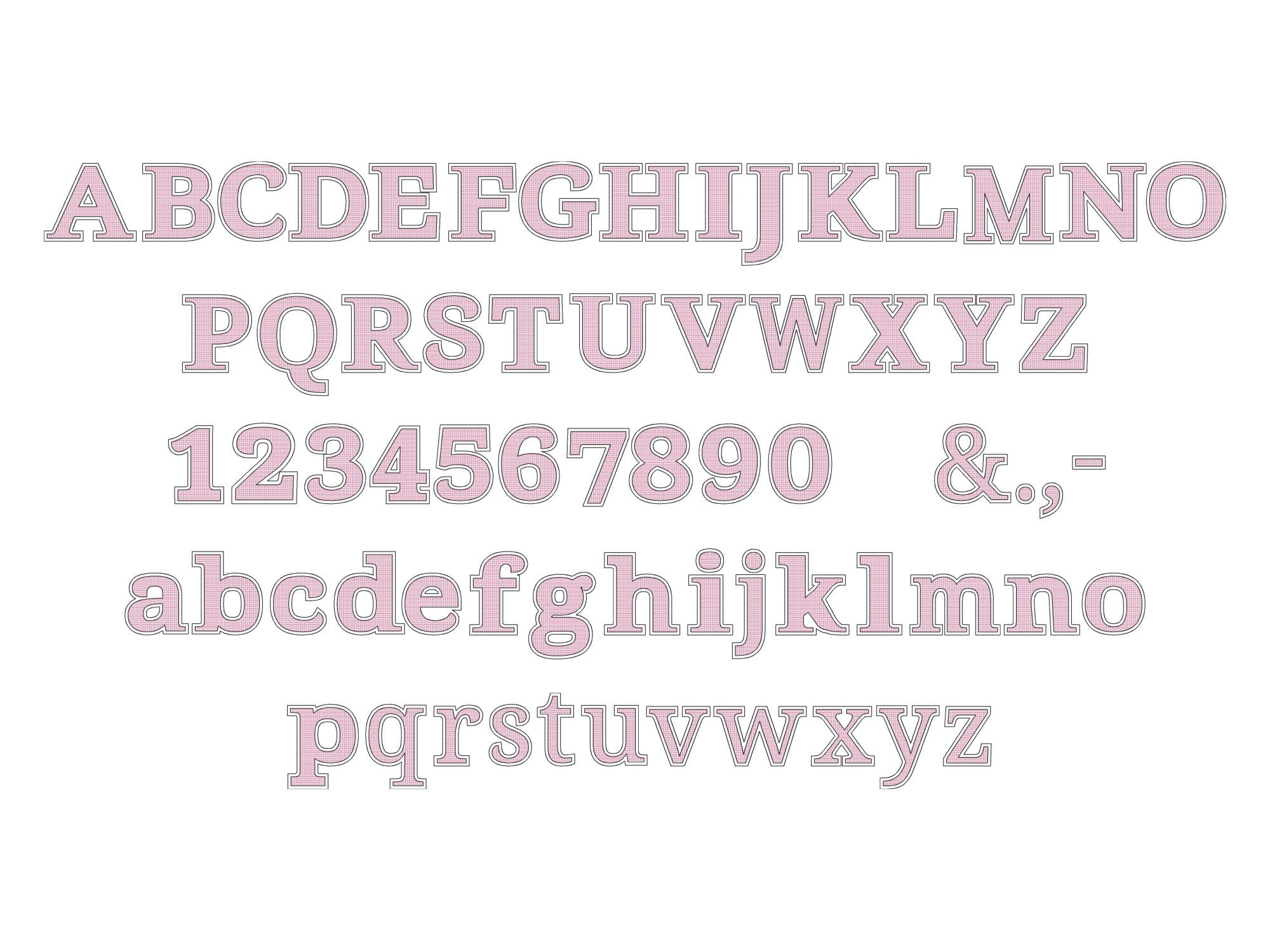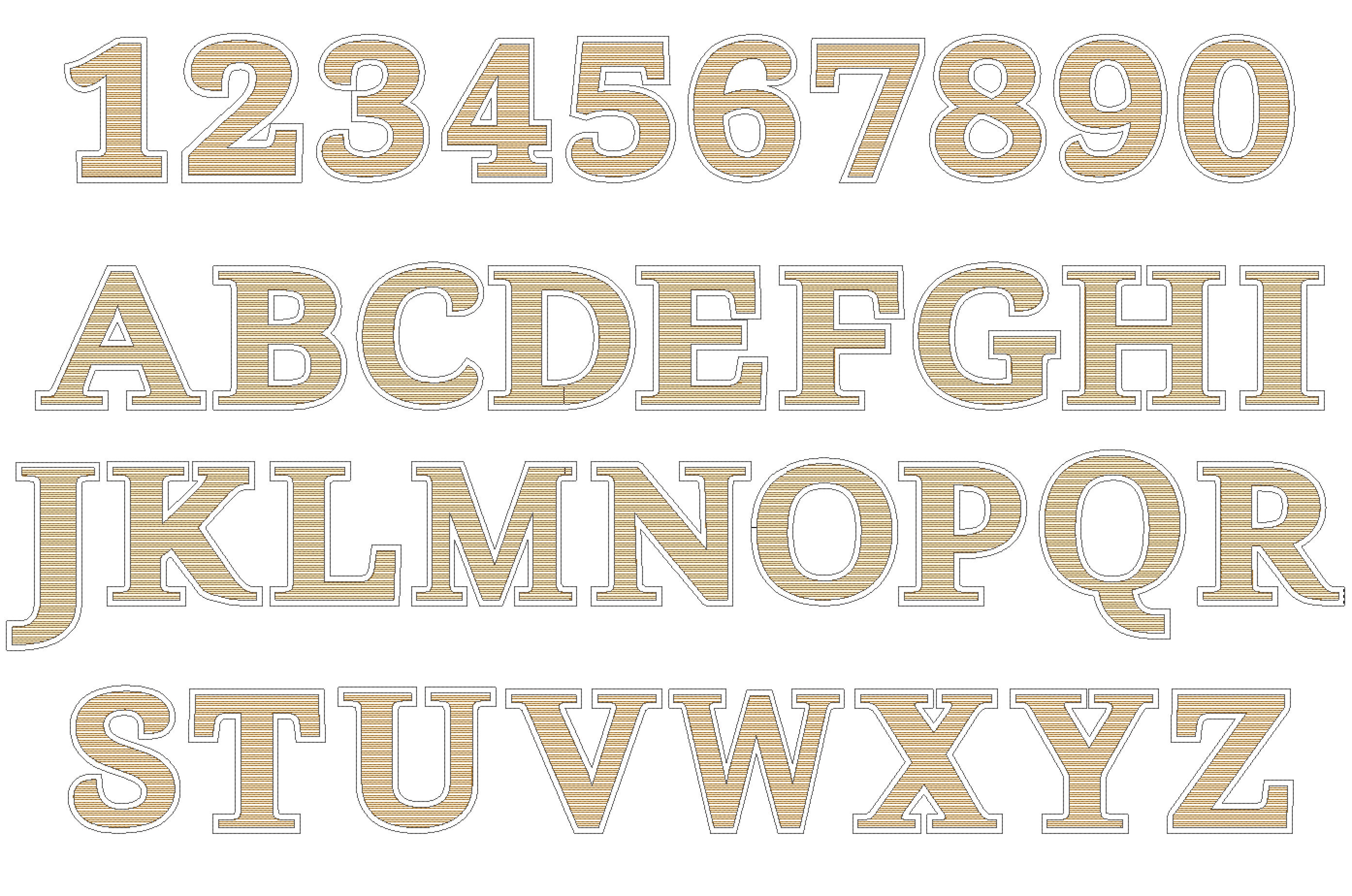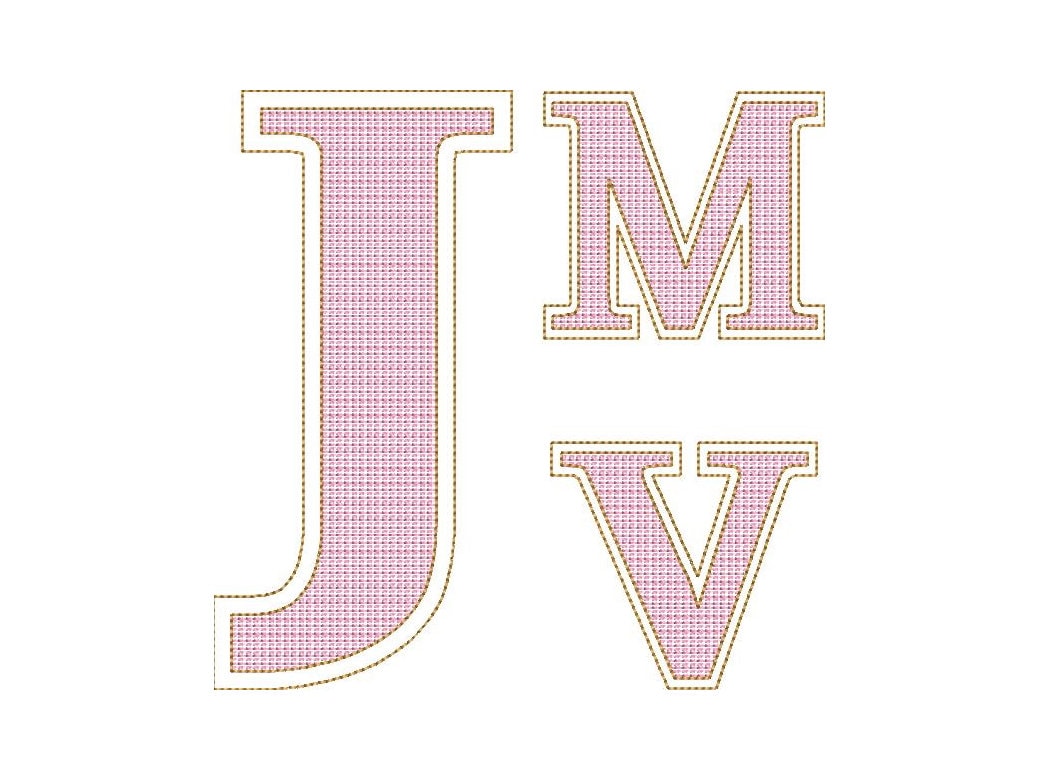
Golden light stitch block sheriff Font may use with Script calligraphy signature Handwritten Font, machine embroidery designs in assorted sizes
Uppercase and lowercase letters Aa-Zz, numbers 0-9, and punctuation & . , -